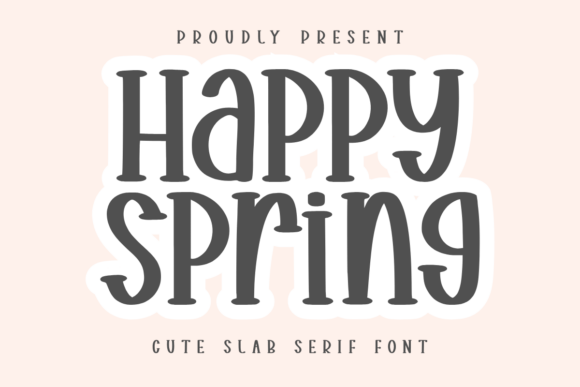
Spring into Design with the Perfect Font
As the snow melts and flowers bloom, I’m reminded of the excitement that comes with a new season – and a fresh start in design. There’s something about the crisp air and vibrant colors that sparks creativity and inspires us to try new things. And what better way to celebrate the arrival of spring than with a beautiful, new font that captures its essence?
Enter Happy Spring Font, a delightful slab serif font that’s perfect for any project. With its clean lines, friendly feel, and versatility, this font is sure to bring a smile to your face and a touch of springtime charm to your designs. Whether you’re working on a logo, social media graphics, or a branding campaign, Happy Spring Font is the perfect addition to your design toolkit.
Happy Spring Font Key Features
- Font Style: A playful and cheerful font designed to evoke the feeling of spring.
- Unique Character Set: Includes a range of unique characters, such as floral symbols and seasonal icons, to add a touch of whimsy to your designs.
- Language Support: Supports multiple languages, including English, Spanish, French, and many others, making it a versatile font for global applications.
- Color Variations: Includes a range of color variations to suit different design styles and preferences.
Happy Spring Font Review
I recently had the chance to work with the “Happy Spring Font” and I must say, it’s a unique and interesting addition to any design project. ✨ The font’s playful, hand-drawn style immediately caught my attention and added a whimsical touch to my designs. The font is perfect for spring-themed projects, Easter celebrations, or any other occasion where a cheerful, lighthearted feel is desired.
Here are some of the things that I like about the font:
- ✨ The font’s irregularities and imperfections give it a hand-drawn, organic feel that’s hard to replicate with digital tools.
- ✨ The font’s bold, playful strokes make it perfect for headings and titles.
- ✨ The font is highly customizable, allowing designers to adjust the size, color, and style to suit their needs.
- ⚠️ The font may not be suitable for formal or professional projects, as its playful style may come across as unprofessional.
- ⚠️ The font’s irregularities can make it difficult to read at small sizes or in certain contexts.
Overall, I think the “Happy Spring Font” is a fun and creative addition to any designer’s toolkit. While it may have some limitations, its unique style and customization options make it a great choice for the right project.
Here are some tips and common use cases for the Happy Spring Font:
- Use the Happy Spring Font for spring-themed designs, such as Easter cards, spring-themed social media posts, or outdoor event invitations.
- Experiment with different font sizes and colors to create a visually appealing design.
- Combine the Happy Spring Font with other spring-themed elements, such as flowers, leaves, or sunshine, to create a cohesive design.
- Choose a floral pattern as the background image.
- Use Happy Spring Font to add the invitation details, such as the event name, date, and location.
- Emphasize the font with a bright and pastel color palette to match the spring theme.
- Use watercolor-style illustrations to add a whimsical touch.
- Include a photo of fresh flowers to tie in with the spring theme.
- Choose a beautiful spring-inspired background image or color.
Spring into Creativity with Happy Spring Font
Project 1: Spring Florals Invitation
Create a beautiful and inviting spring-themed invitation using Happy Spring Font. This font is perfect for adding a playful touch to your design.
How to use Happy Spring Font:
Project 2: Spring Quotes Art
Create a stunning piece of art featuring inspirational spring quotes using Happy Spring Font. This font adds a touch of warmth and coziness to your design.